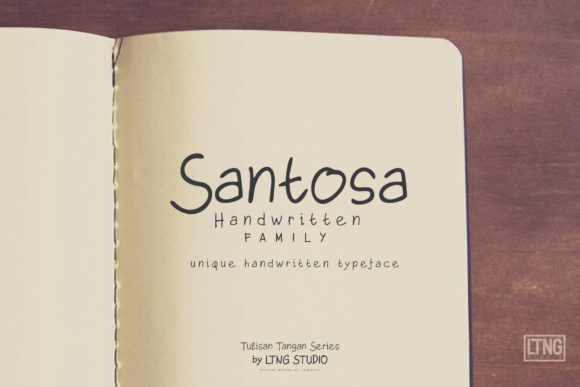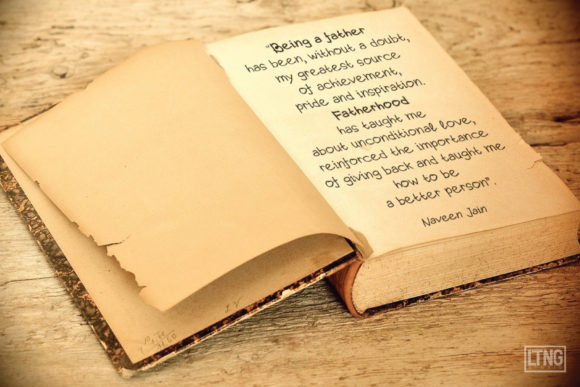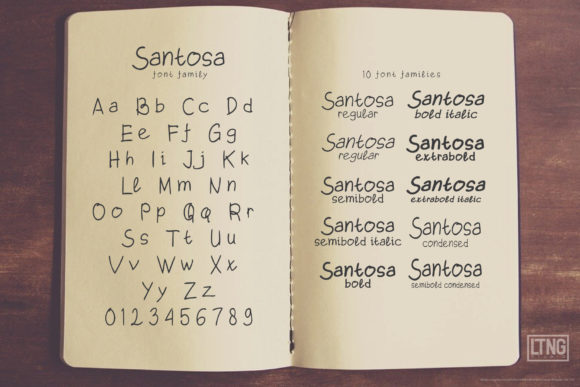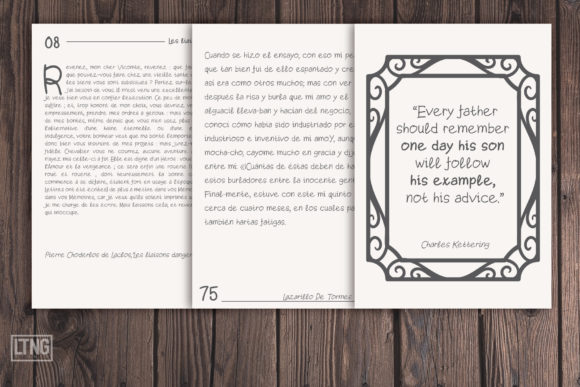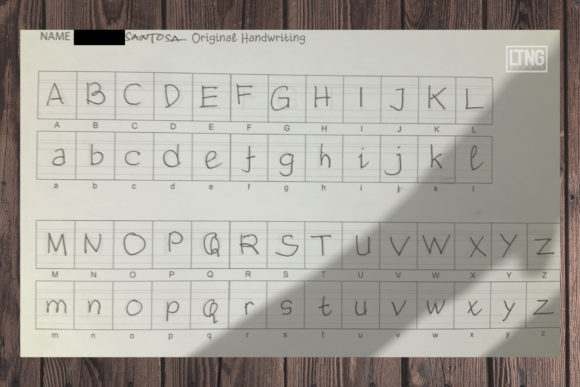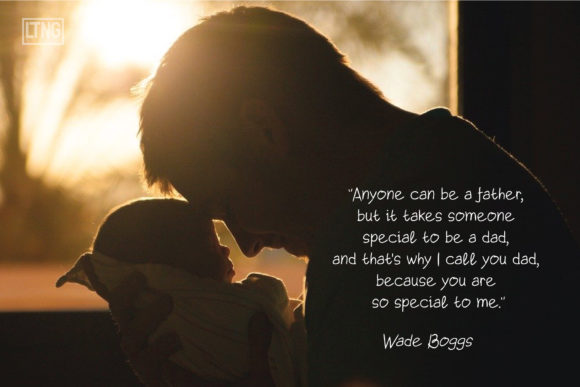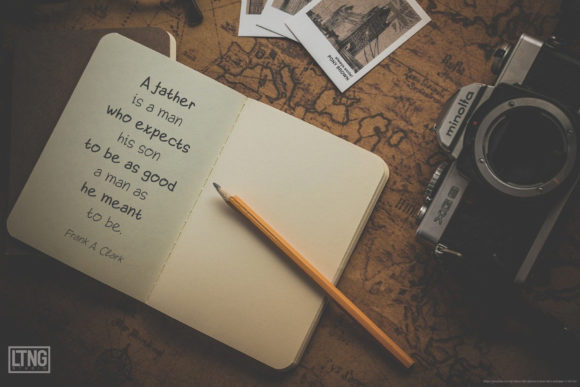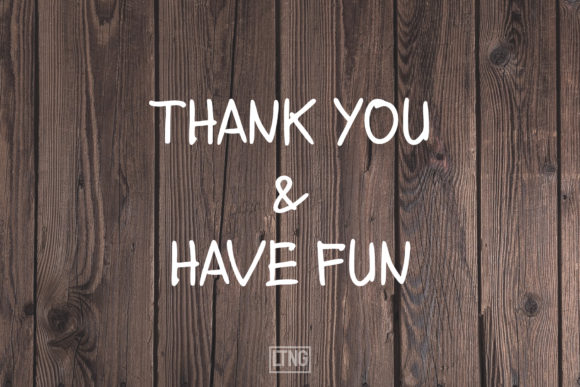
Santosa Font
About Santosa Font
Santosa is a sweet, soft hand-lettered handwritten font. It will elevate a wide range of design projects to the highest level, be it branding, headings, wedding designs, invitations, signatures, logos, labels, and much more!